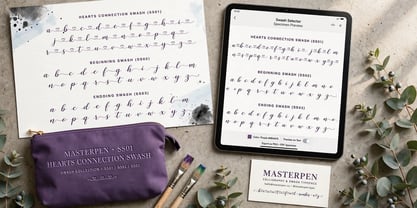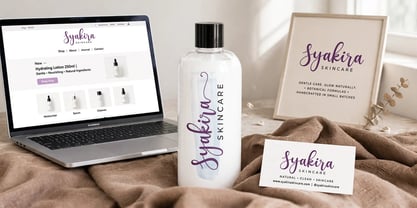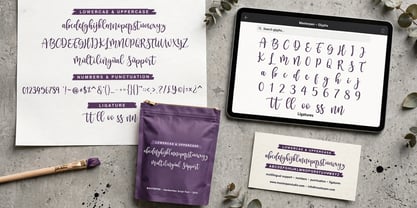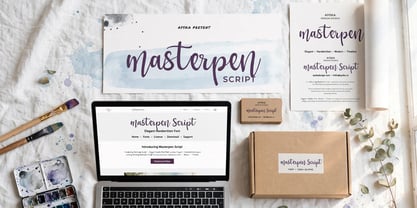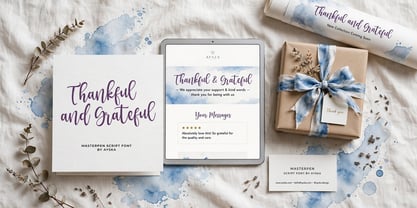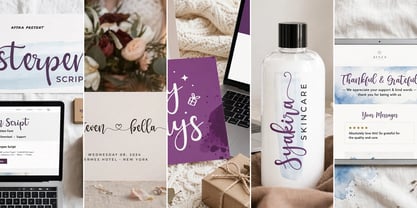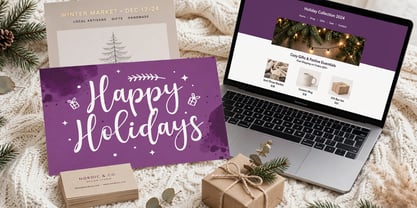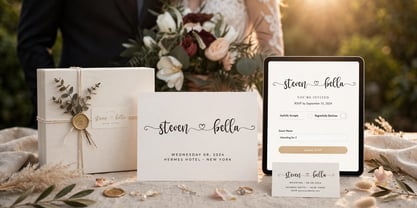
Masterpen Script
por Ayska
La familia tipográfica Masterpen Script fue diseñada por Dhoni Trihatmoko y publicada por Ayska. Masterpen Script contiene 1 estilos.
Masterpen Script is an handwritten font that is suitable for branding, signature, wedding invitation, promotion, product packaging, and other needs. This font is modern, simple, but still authentic. You will get full set of lowercase and uppercase letters, numerals and punctuation, multilingual symbols, lowercase beginning and ending swashes, ligatures and extra swashes